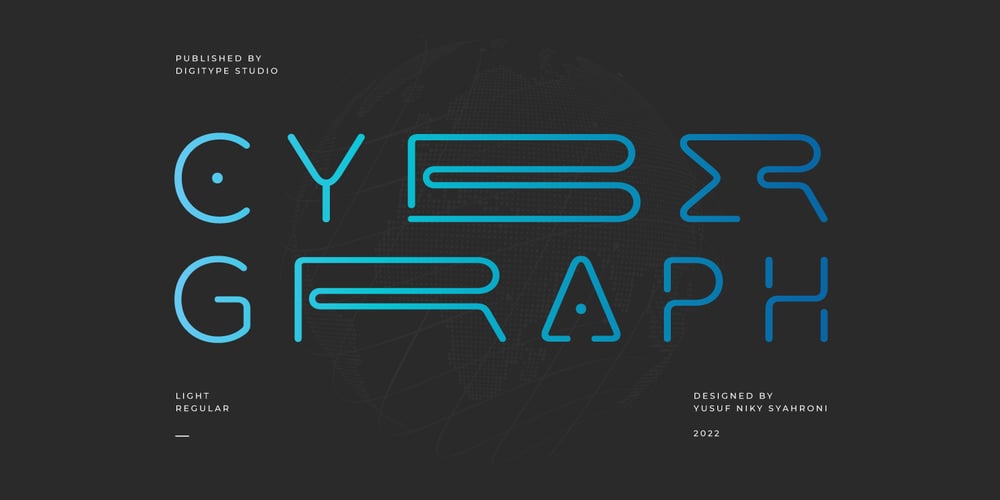
Cyber Graph Font Family was designed by Yusuf Niky Syahroni and published by Digitype Studio. Cyber Graph contains 2 styles and family package options. Cyber Graph is a rounded futuristic font with 2 styles light and regular. This font is very suitable for headlines, logos, movie titles, game titles, labels, sci-fi magazines, packaging, or all kinds of advertising purposes.This font is equipped with PUA Encoded so that the OpenType feature (ligatures & Stylistic alternates) can be accessed on design software such as Adobe Illustrator, Adobe Photoshop, Adobe InDesign, and even work on Microsoft Word.To access all characters in Microsoft Word “click Insert-Symbol-More Symbols”If you have any questions, don’t hesitate to contact us; we will be happy to help.Support for 82 languagesAfrikaans, Albanian, Asu, Basque, Bemba, Bena, Breton, Catalan, Chiga, Colognian, Cornish, Croatian, Danish, Dutch, Embu, English, Esperanto, Estonian, Faroese, Filipino, Finnish, French, Friulian, Galician, German, Gusii, Hungarian, Indonesian, Irish, Italian, Kabuverdianu, Kalenjin, Kamba, Kikuyu, Kinyarwanda, Lithuanian, Lower Sorbian, Luo, Luxembourgish, Luyia, Machame, Makhuwa-Meetto, Makonde, Malagasy, Manx, Meru, Morisyen, North Ndebele, Norwegian Bokmål, Norwegian Nynorsk, Nyankole, Oromo, Polish, Portuguese, Quechua, Romansh, Rombo, Rundi, Rwa, Samburu, Sango, Sangu, Scottish Gaelic, Sena, Serbian, Shambala, Shona, Soga, Somali, Spanish, Swahili, Swedish, Swiss German, Taita, Teso, Turkish, Upper Sorbian, Uzbek (Latin), Volapük, Vunjo, Walser, Zulu.